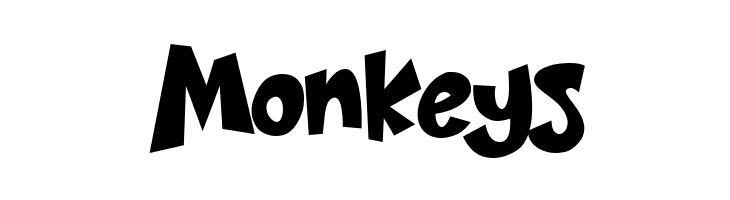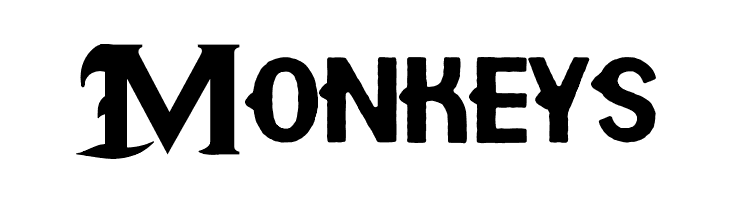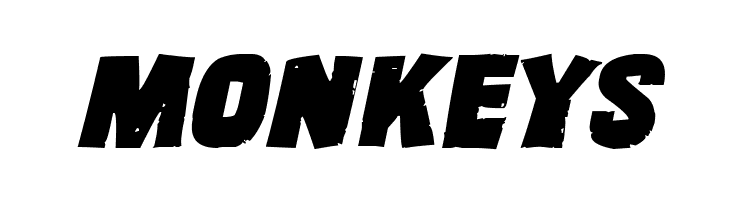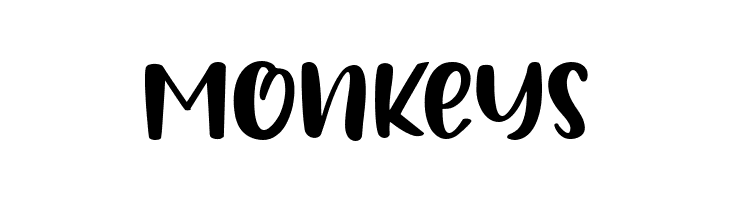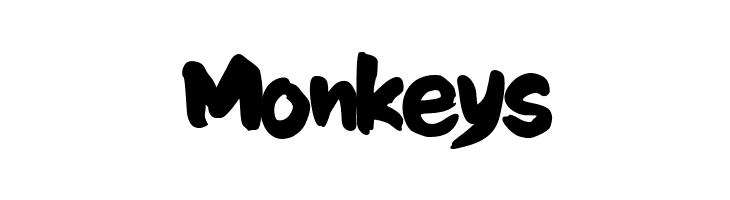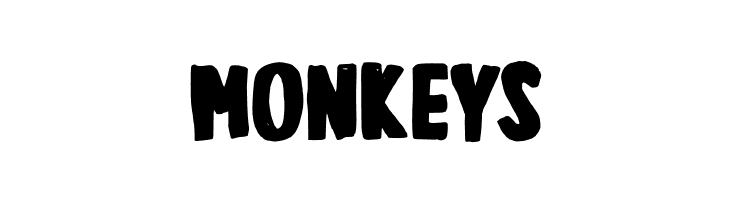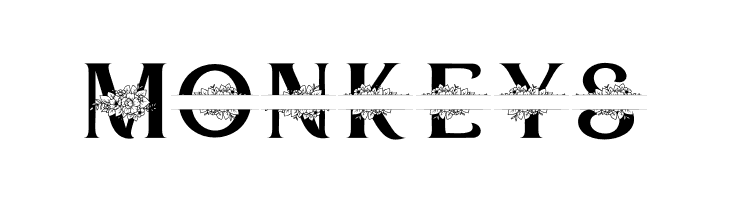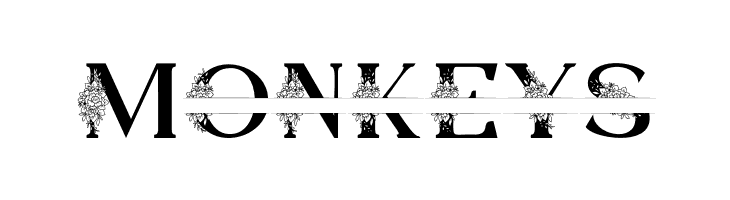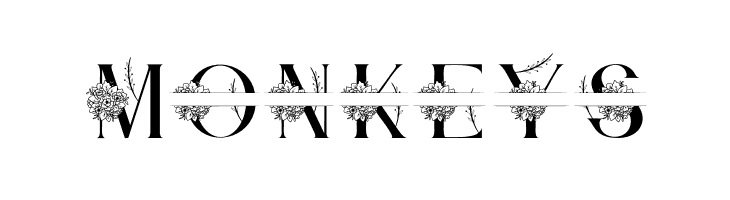
A bold, playful font with exaggerated curves and a cartoonish flair.
A bold, textured, and slightly italicized font with a playful, vintage feel.
A bold, italicized font with a playful, textured style.
A playful, bold script font with a handwritten feel.
A playful, bold font with a hand-drawn, comic-style appearance.
A bold, playful font with a hand-drawn, friendly appearance.
A bold, decorative font with floral patterns and a vintage flair.
A bold, decorative font with a distressed, vintage texture.
A decorative serif font with intricate floral embellishments.